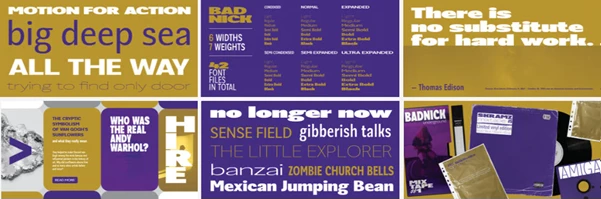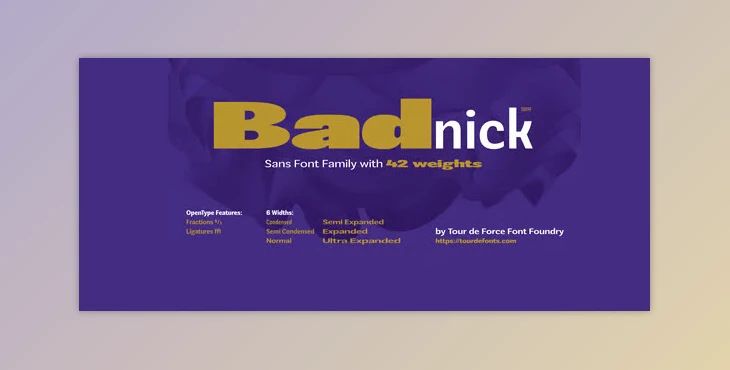
The Badnick Font Family is a complete sans serif type family of 42 weights and six widths. 6 widths from Condensed to Semi Condensed to Normal to Semi Expanded to Ultra Expanded. And across each width is a Light to Black spectrum as well. Within Badnick offers Regular, Medium, Semi Bold, Bold, and Extra Bold. Such a range within Badnick means that it can be used for any typographic application—from posters to packaging print to digital print to online web use to branding to editorial and even outdoor graphics. There seems to be no limitation on the effective and efficient use of Badnick.
Furthermore, it extends support for Latin charactered languages with extended characters and has multiple advanced OpenType features, including Fractures and Ligatures. Thus, the possibilities are endless. All in all, this is a font that any designer would love to have at their fingertips.